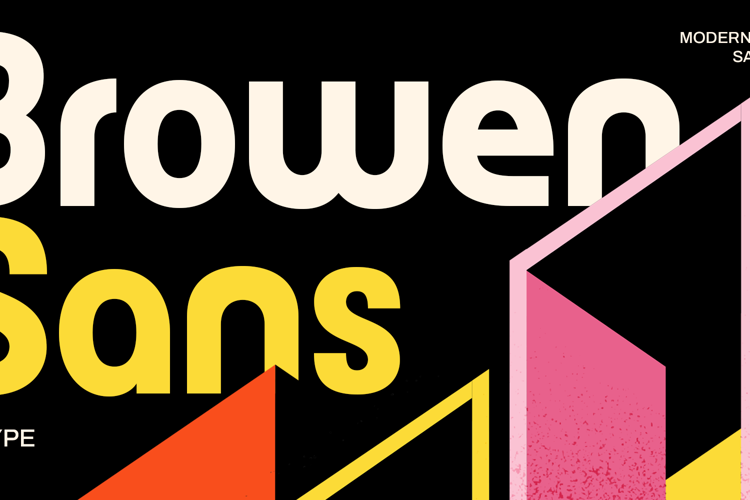
Browen - Font
Browen is a modern serif typeface that combines elegance, clarity, and strong character, making it ideal for contemporary design projects. With its refined letterforms and balanced proportions, this typeface provides a sophisticated aesthetic that excels in both digital and print media. Designed for professionals seeking a modern serif font for branding, logo design, editorial layouts, fashion graphics, packaging, and luxury visual identities, Browen offers a timeless appearance infused with a modern personality. Its elegant strokes and distinctive serif details create a harmonious typography style that resonates with both classic and contemporary sensibilities, ensuring versatility and appeal in various applications.